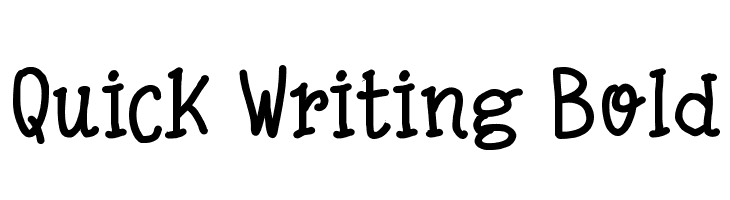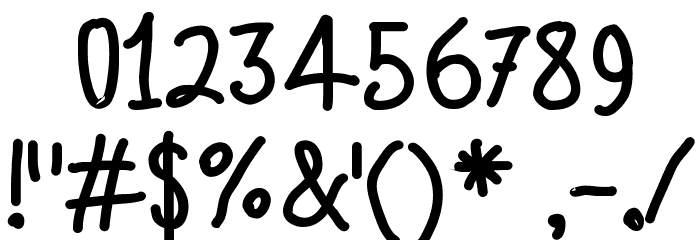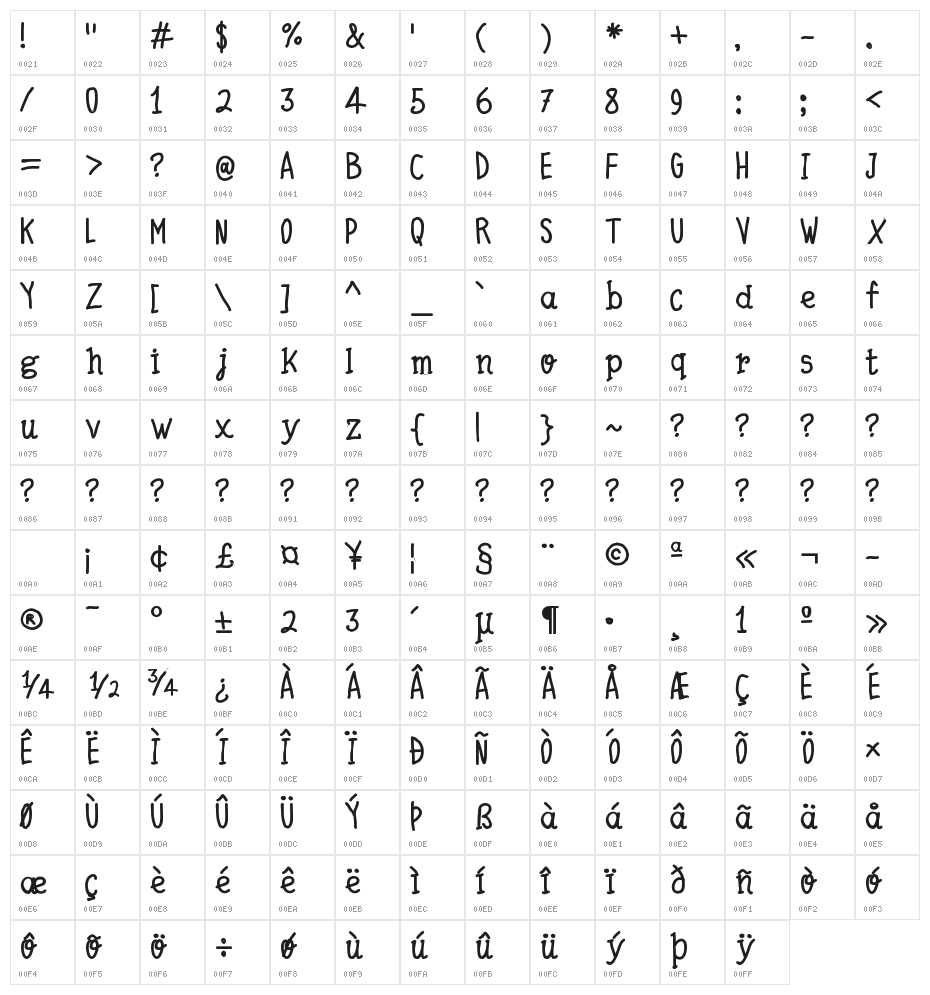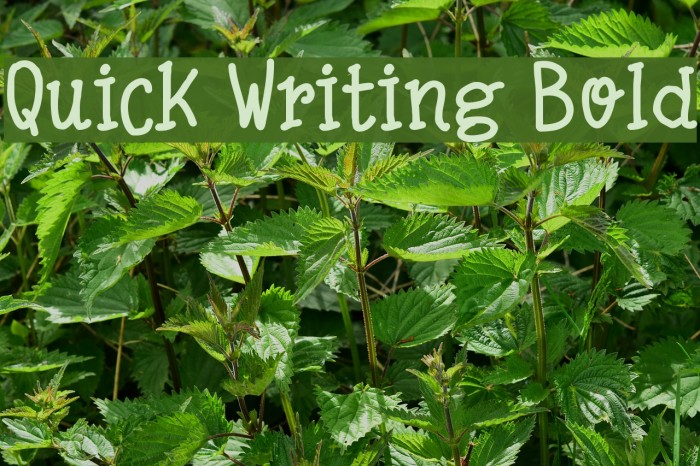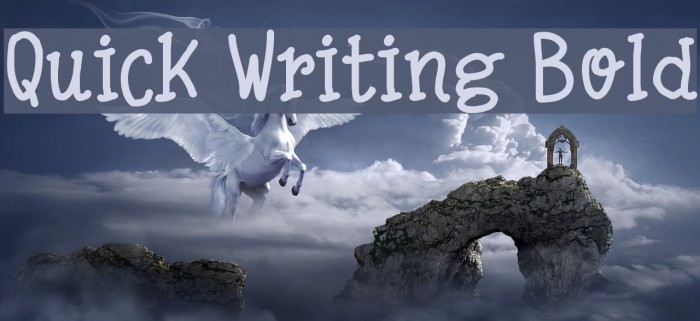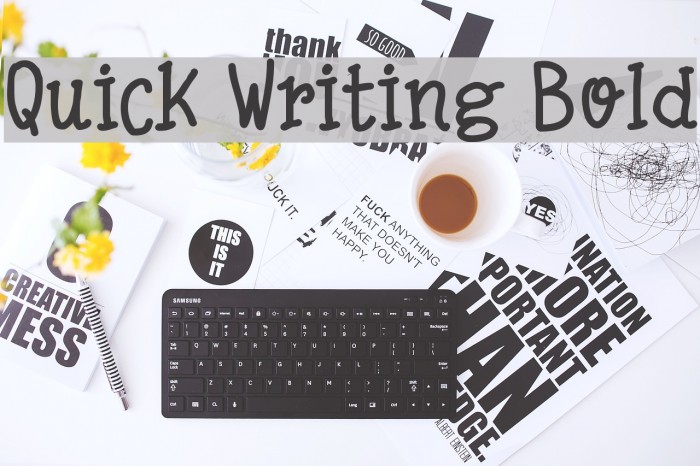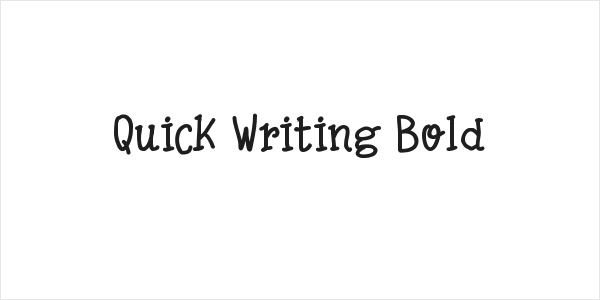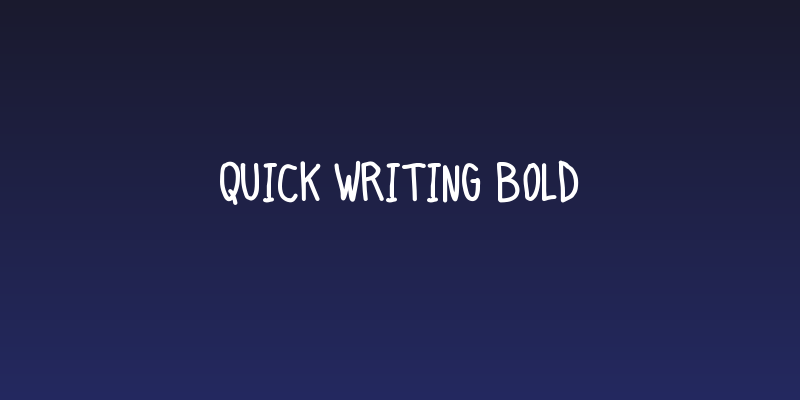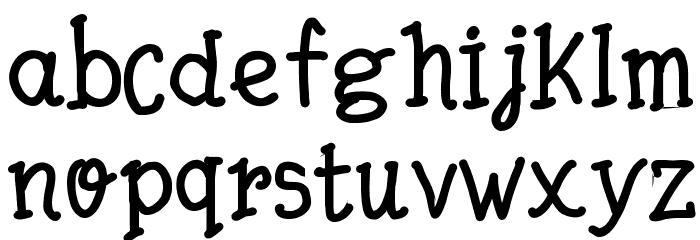
Quick Writing Bold Font
Quick Writing Bold Description
This font exudes a playful and informal style, characterized by its handwritten appearance. The letters are slightly irregular, giving it a casual and friendly feel. The strokes are consistent in thickness, providing a uniform look across all characters. The uppercase letters are bold and prominent, while the lowercase letters maintain a similar weight, ensuring readability. Numbers and special characters follow the same design principles, making them easily recognizable. This font is ideal for projects that require a personal touch, such as invitations, greeting cards, or creative posters.